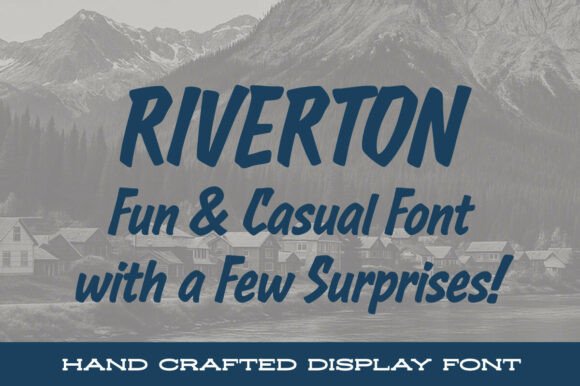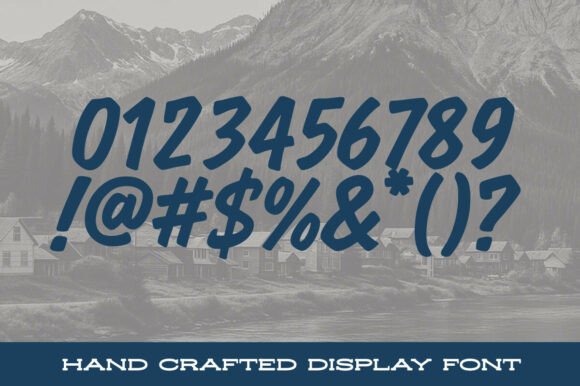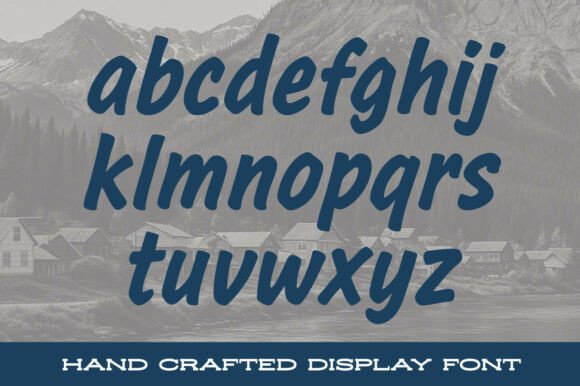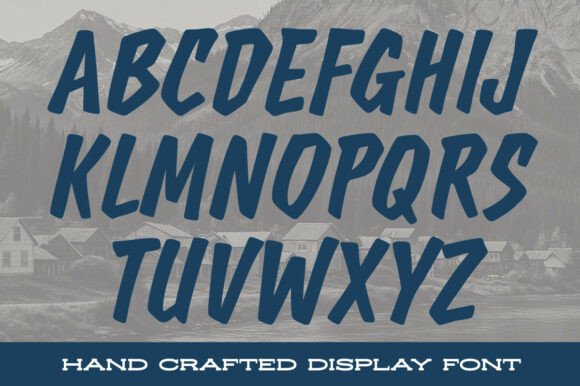
Introduction to Riverton Font Font
Fonts play a crucial role in design, and the Riverton Font font is a typeface that brings both character and versatility to any project. Whether you’re working on a branding project, a website, or a print design, the Riverton Font font offers a unique style that can elevate your work.
Riverton is a bold, hand-crafted display font inspired by small mountain towns, weathered storefront signs, and the grit of real Americana.
Its thick strokes, imperfect edges, and subtly distressed texture give it an authentic handmade feelβstrong, grounded, and full of character Whether used for outdoor brands, vintage packaging, bold posters, or rustic signage, the Riverton font delivers a tough, lived-in aesthetic that stands out while staying beautifully simple.
Key Features of Riverton Font Font
Why Choose Riverton Font Font?
The Riverton Font font is more than just a typeface β it’s a design tool that helps you communicate your message with style and clarity. Its unique character set and versatile design make it suitable for a wide range of applications, from elegant invitations to bold headlines.
With its carefully crafted letterforms and balanced proportions, the Riverton Font font ensures readability and visual appeal across all mediums.
What makes Riverton Font font special?
The Riverton Font font stands out with its unique design, exceptional readability, and versatility across various design applications.